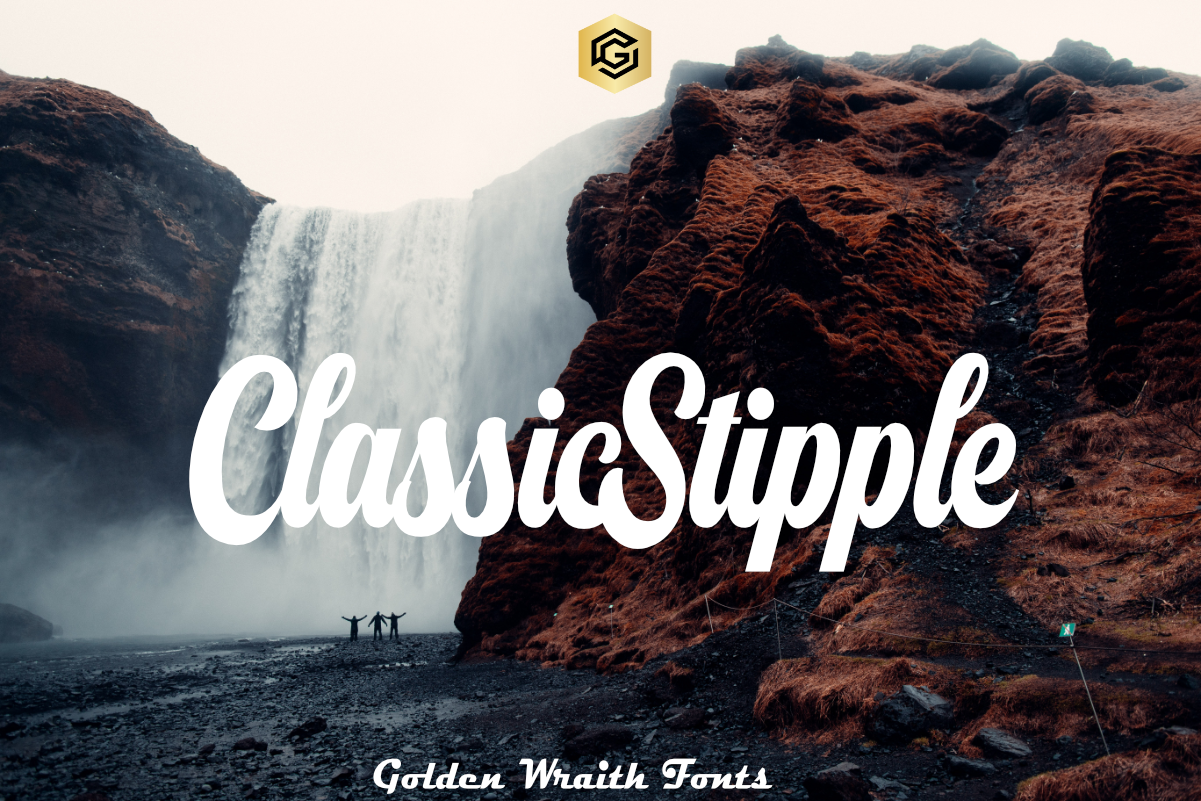
Classic Stipple Font
Classic Stipple Font “ClassicStipple” is a font that captures the vintage charm of traditional craftsmanship with delicate stippled textures. Each letterform carries the artistry of hand-drawn illustrations, adding character and depth to designs. Perfect for branding, editorial layouts, or decorative elements, this font transports projects to a nostalgic era, infusing them with the essence of traditional artistry and a touch of vintage allure.